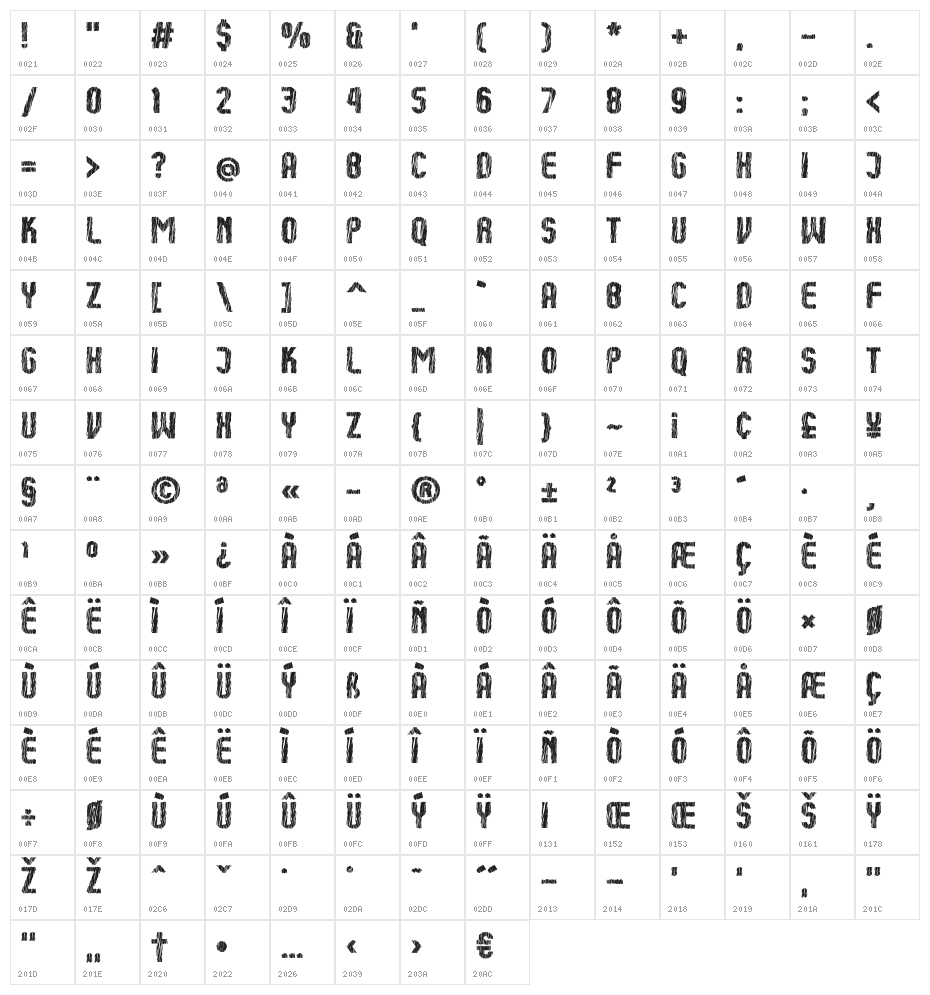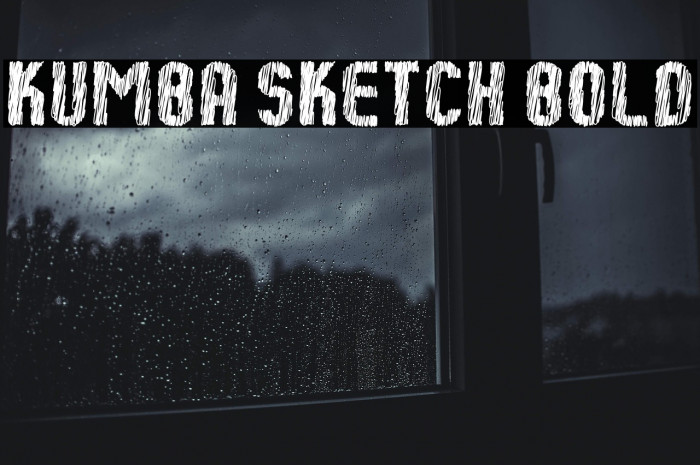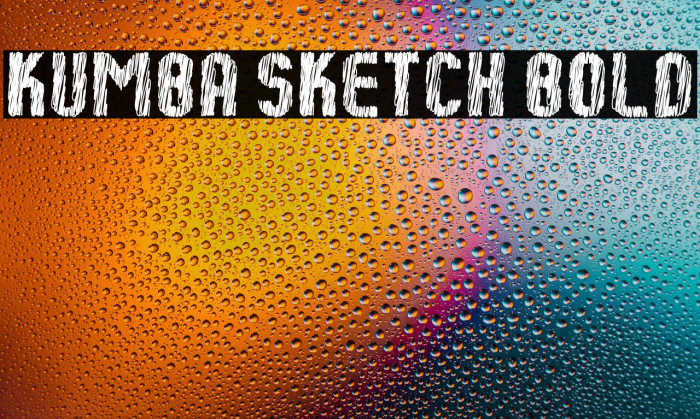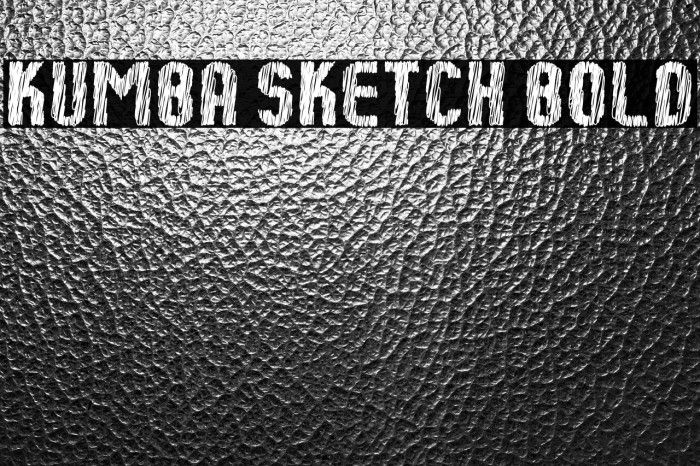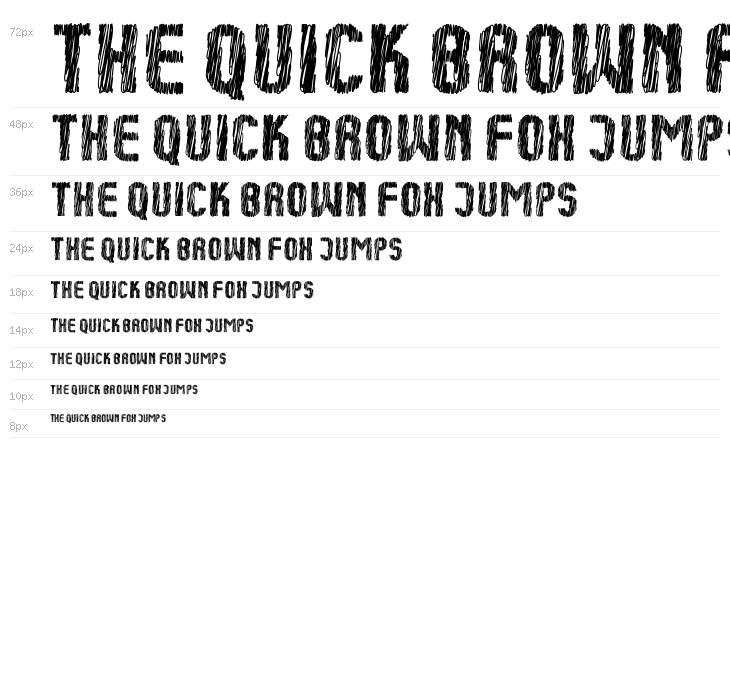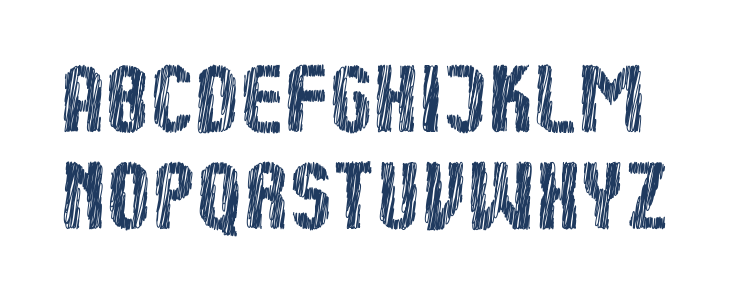
Kumba Sketch Bold Font
Kumba Sketch Bold Description
This font features a bold and sketch-like appearance, characterized by its hand-drawn, textured strokes that give it a dynamic and artistic feel. The letters are uppercase and maintain a consistent thickness throughout, with a slightly irregular edge that adds to the sketchy aesthetic. The numbers and special characters follow the same style, ensuring a cohesive look across all glyphs. This font is perfect for projects that require a creative and informal touch, such as posters, artistic designs, or playful branding.
| Proposed Projects | Ideal for posters, artistic designs, playful branding, and creative projects. |